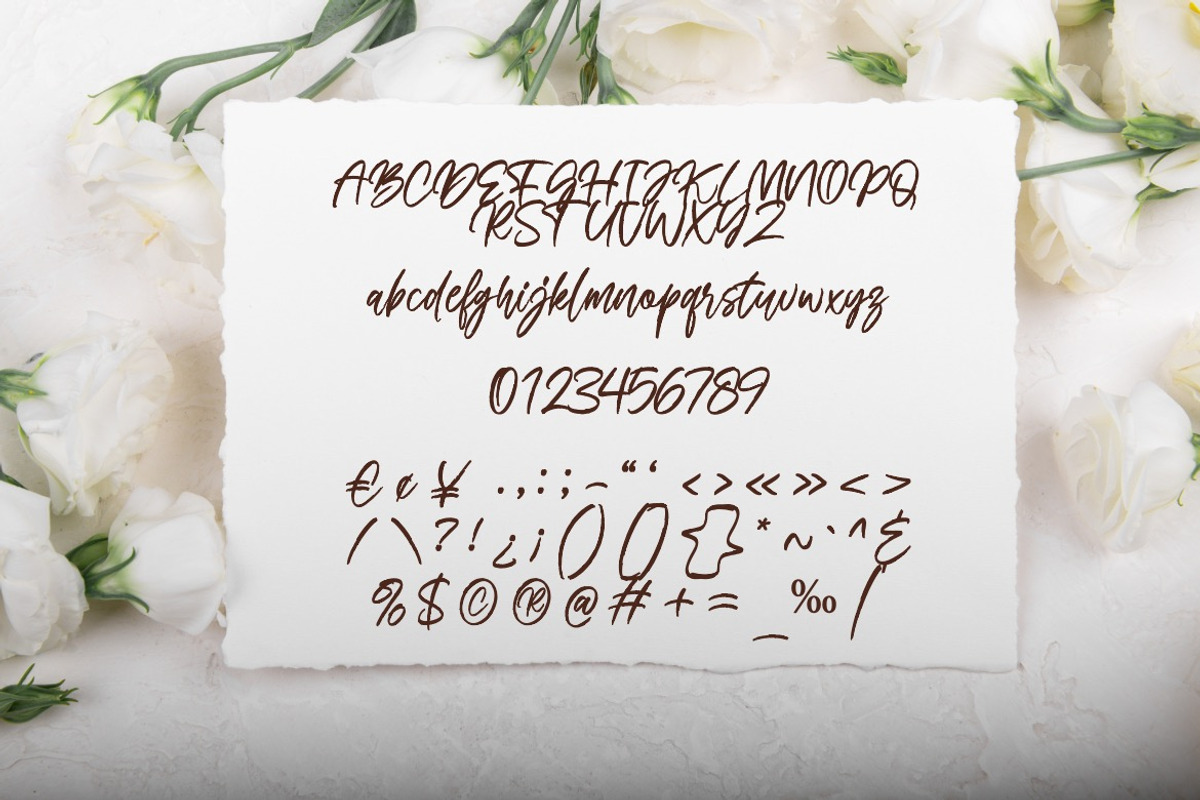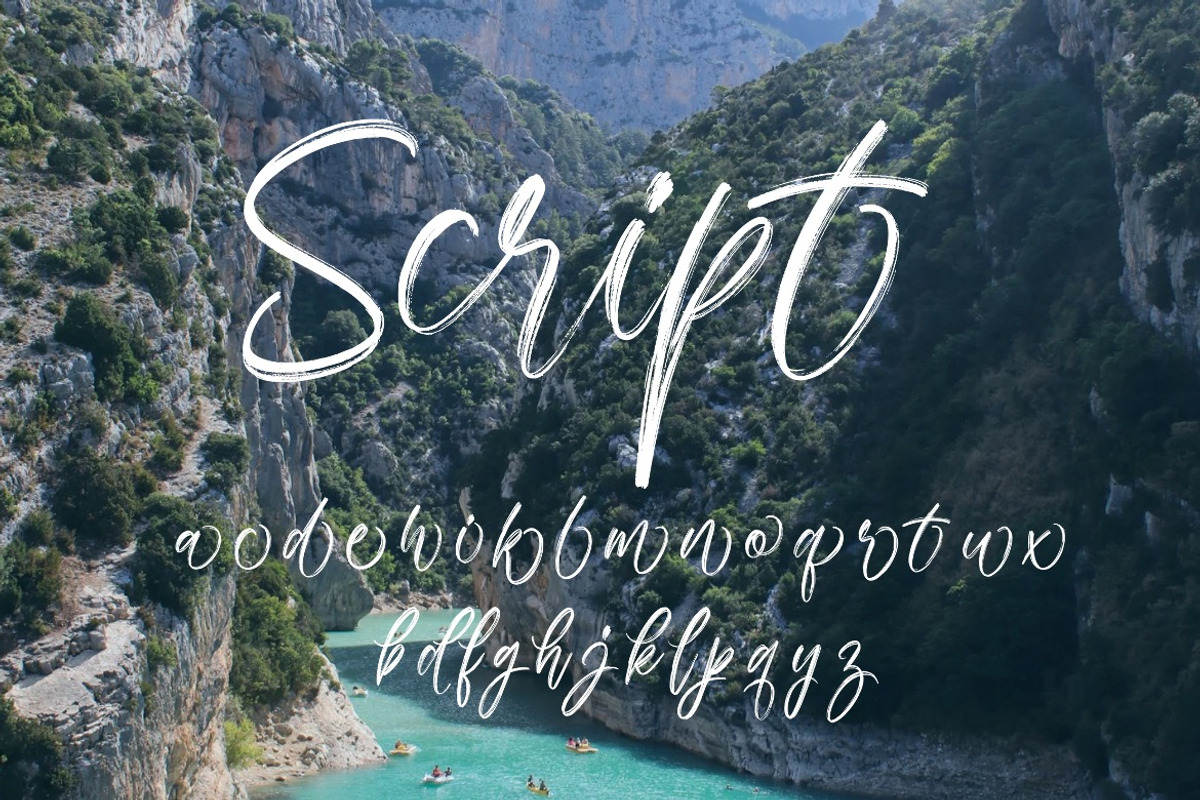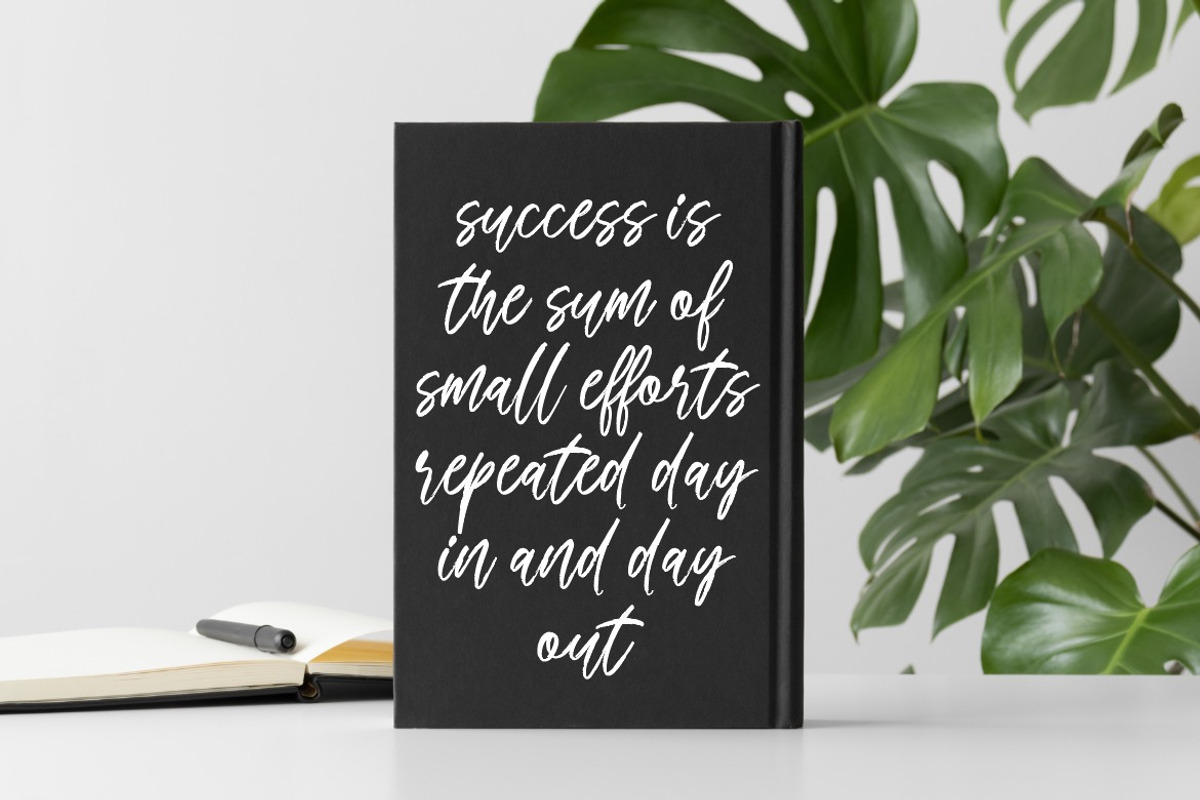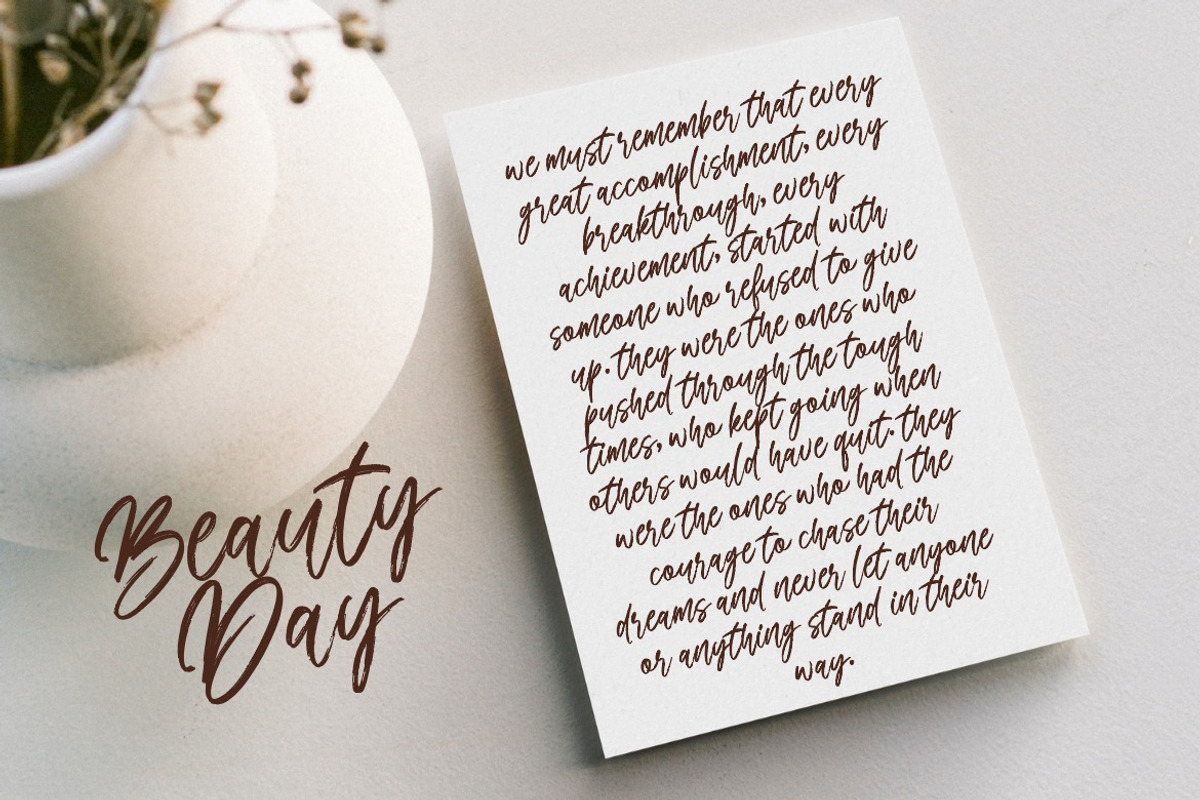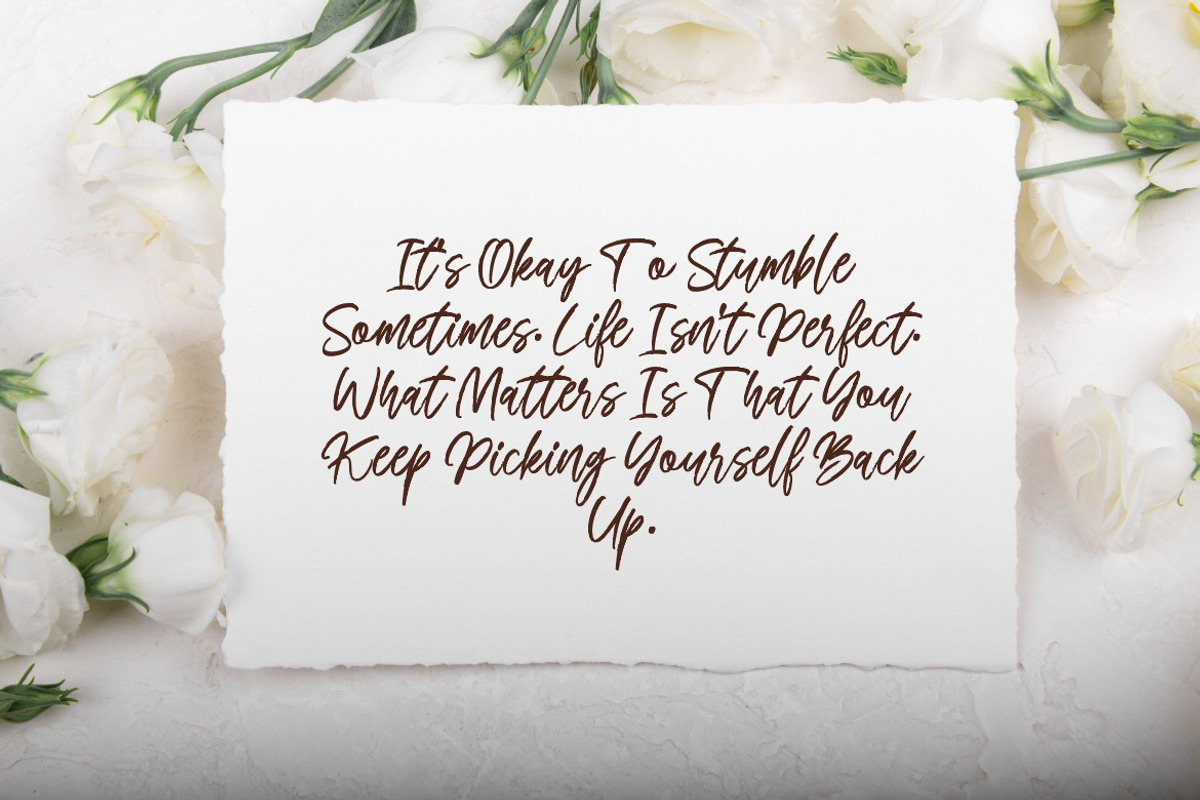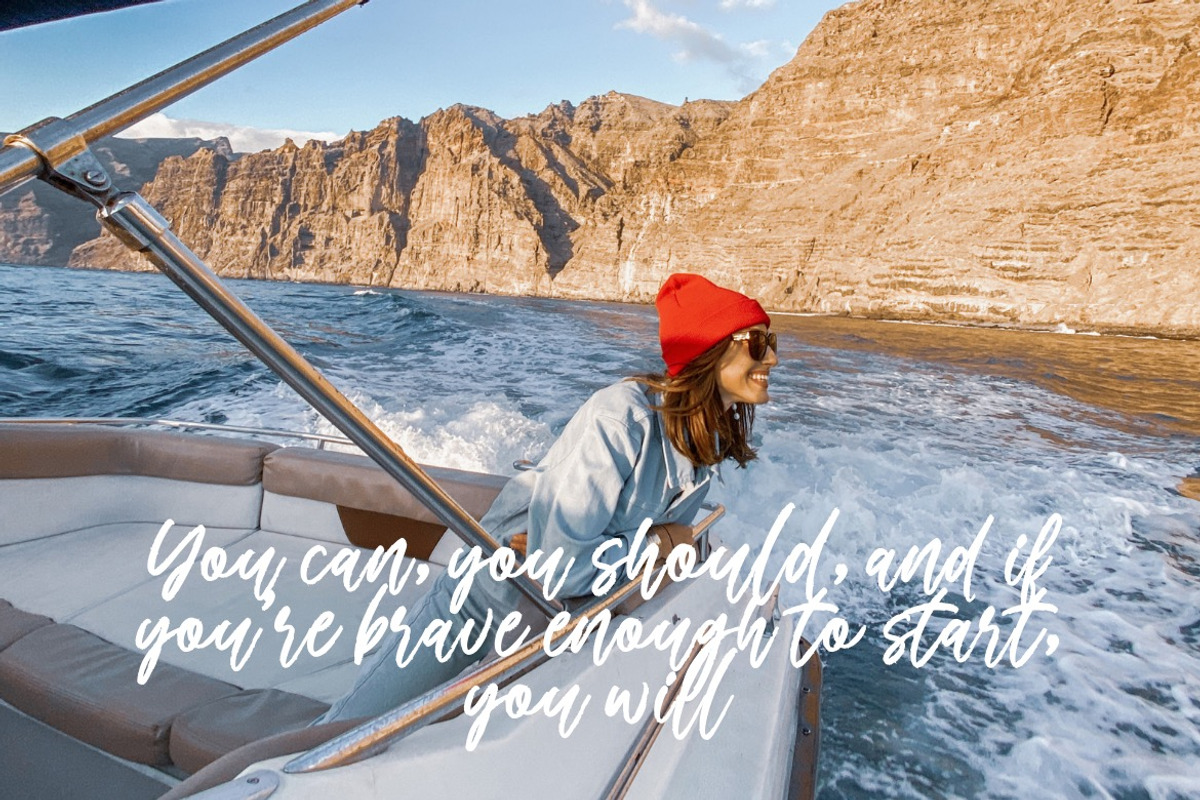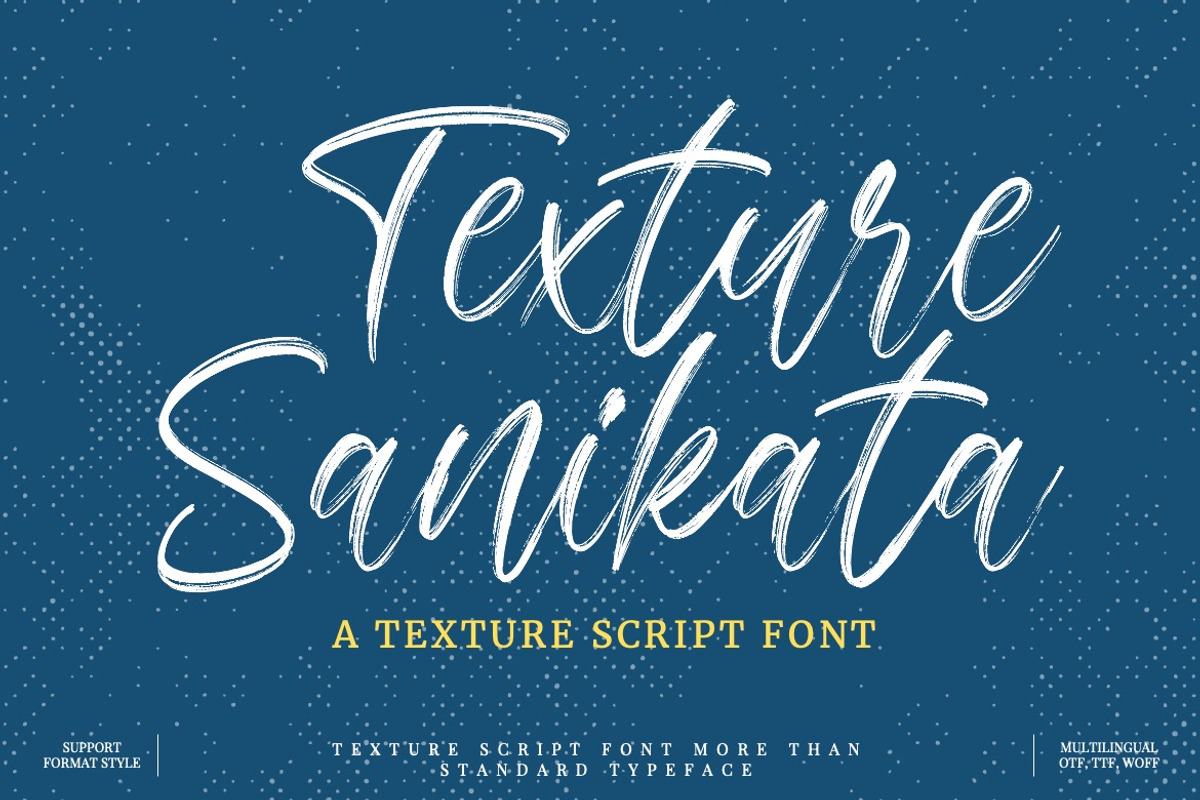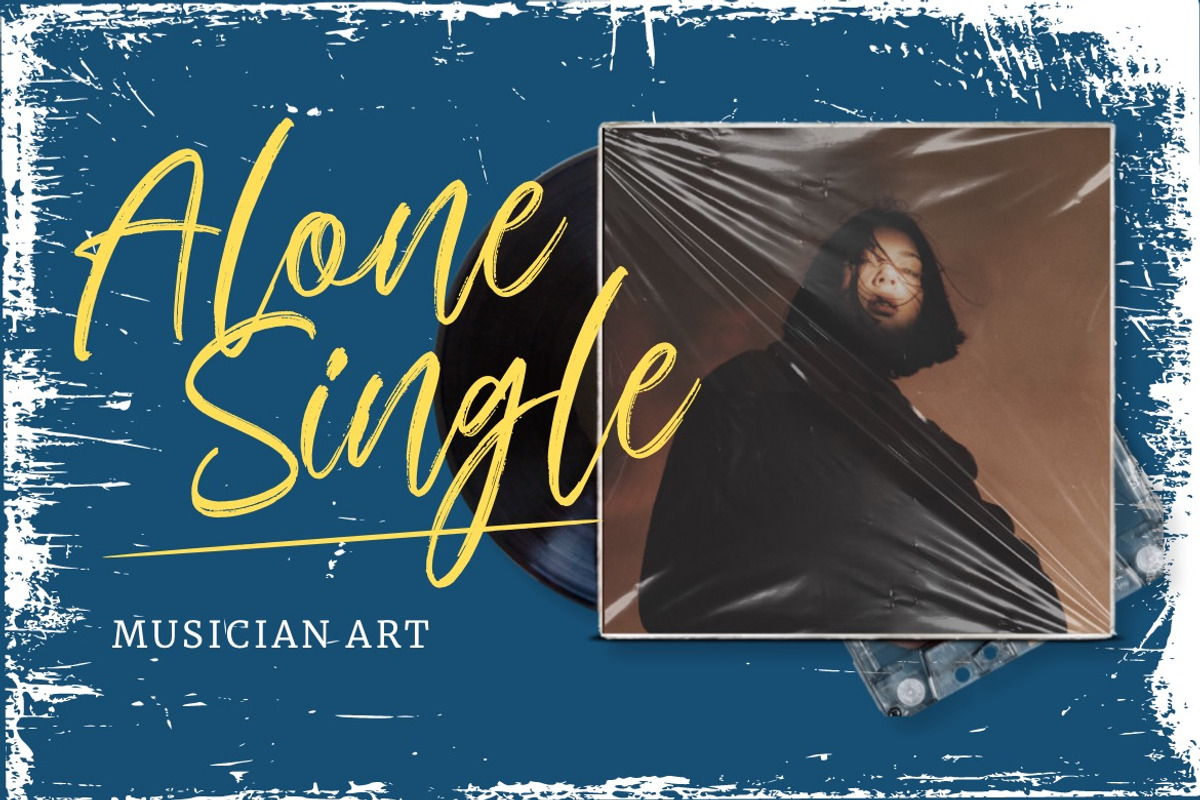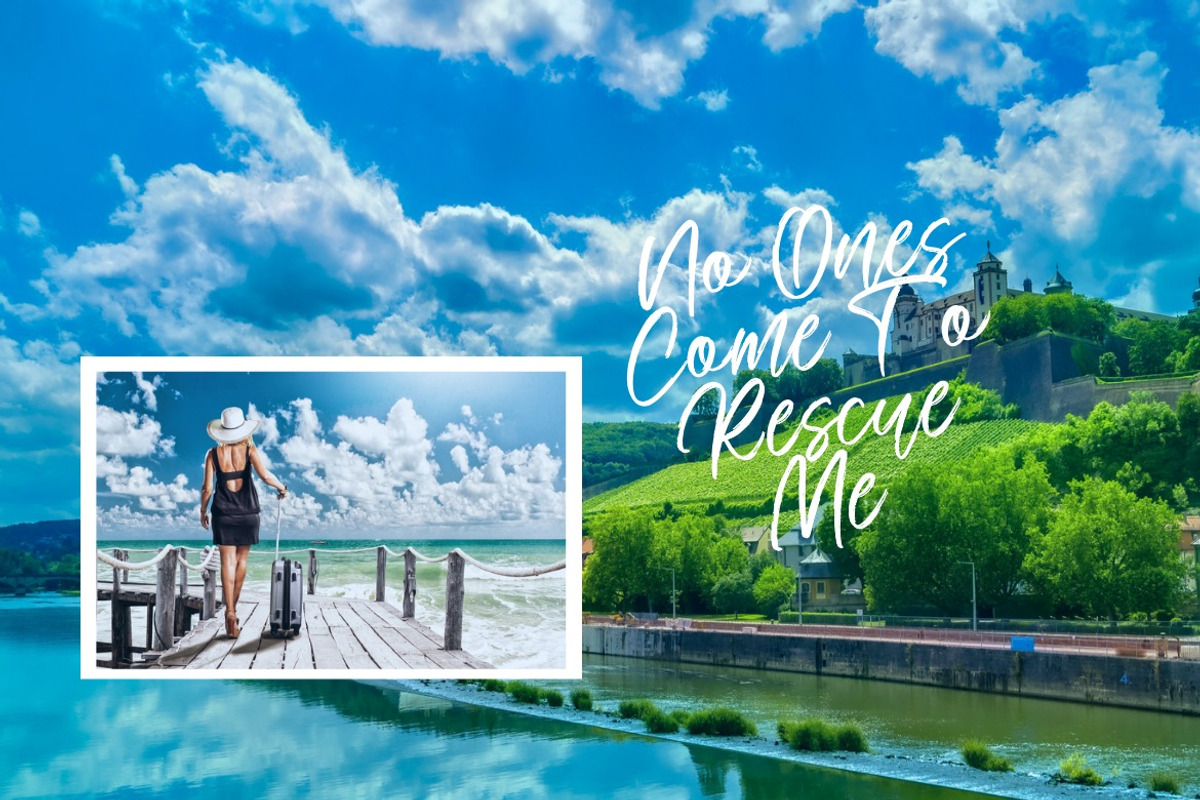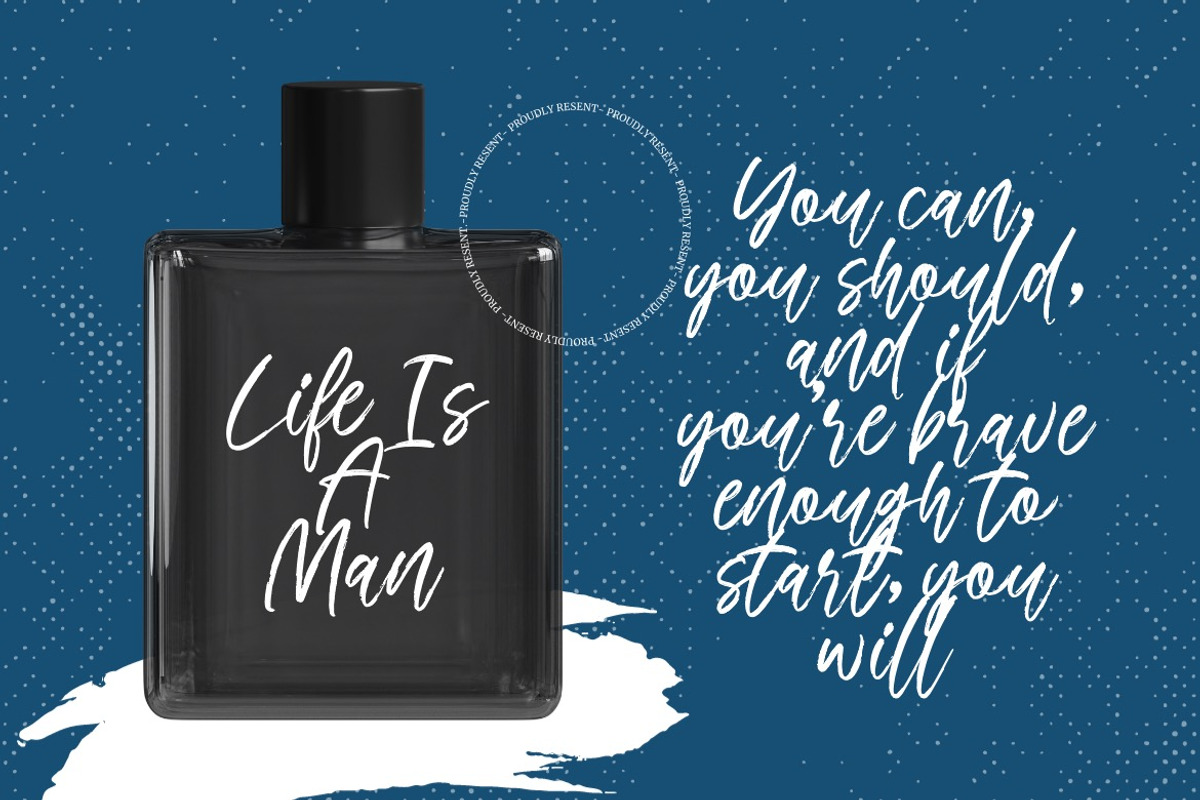
Sanikata - Texture Script Font
Introducing Sanikata - Texture Script Font
This Font is a delicate, elegant and flowing handwritten font. It has beautiful and well as a unique blend of ligatures a letter, so that the authors compose it with a and little swirly embedding, so that a modern font is formed and ready to make a statement by adding elegant and unique flair to your next design project. Add it to your most creative ideas and notice how it makes them come alive!